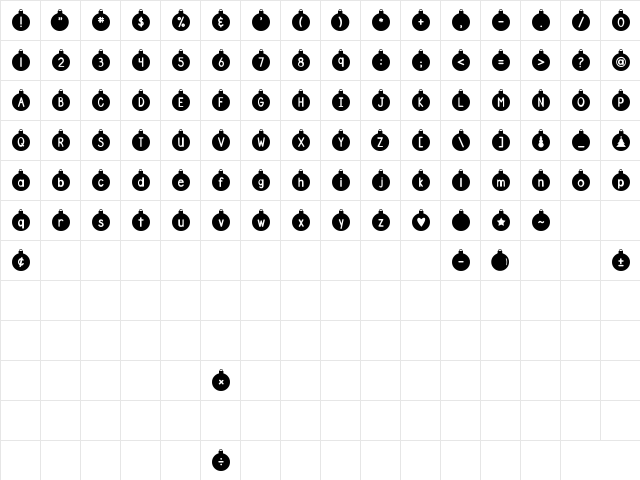
DJB Ornamental Regular
| Designer | Darcy Baldwin |
Design Context for DJB Ornamental Typeface
DJB Ornamental is built around its visual character rather than neutral utility — its distinctive forms are designed to make an impression at display sizes.
Font Pairing: Pair with a clean neutral sans-serif for body copy to let DJB Ornamental's character lead without overwhelming the composition.
Pro Tip: Treat DJB Ornamental as the centrepiece of your typographic hierarchy. One strong heading set in a decorative face can carry an entire layout.